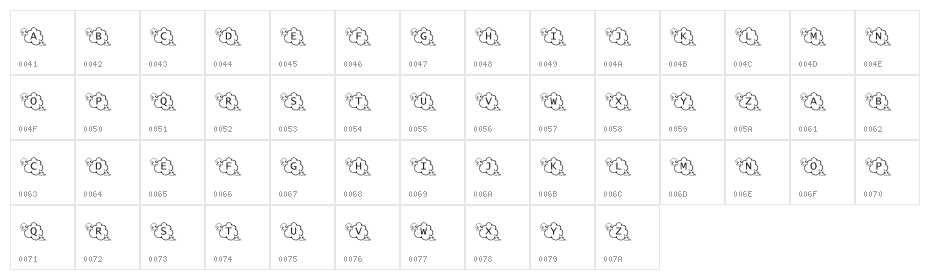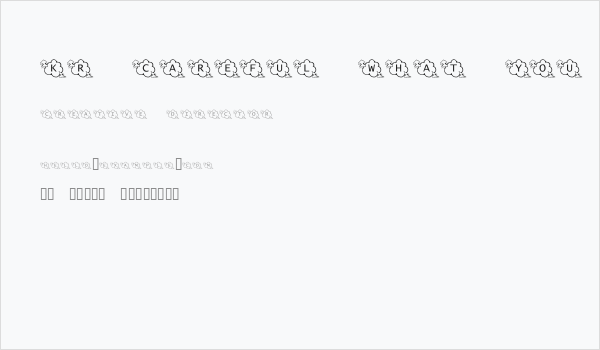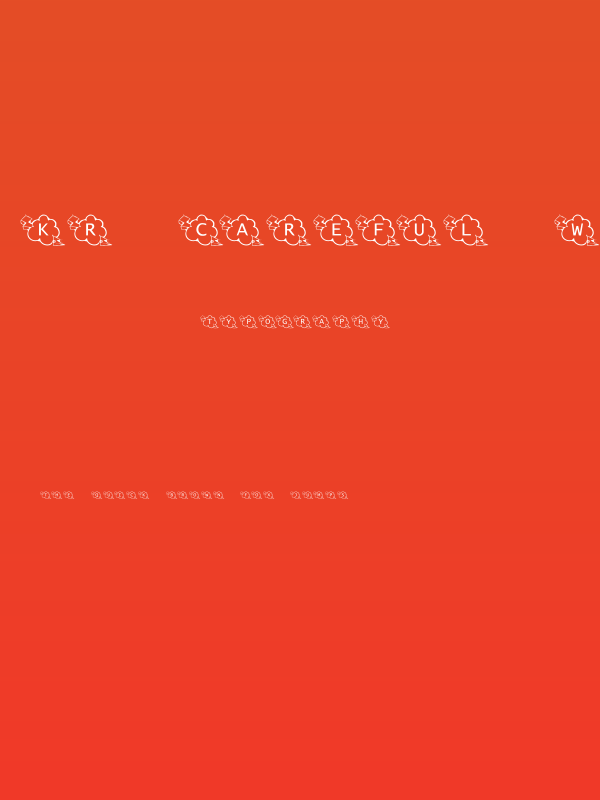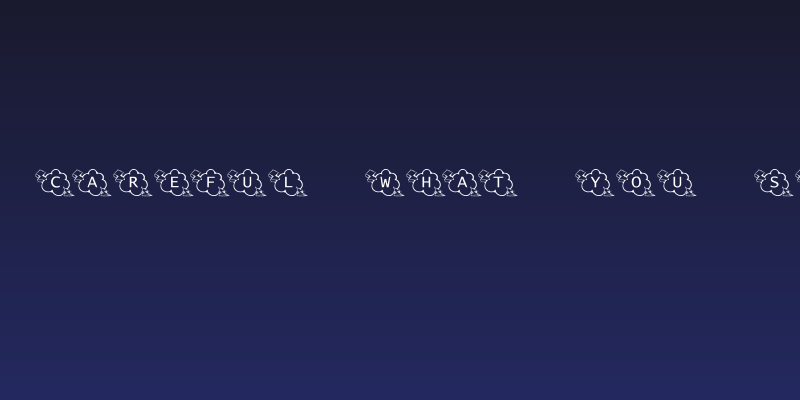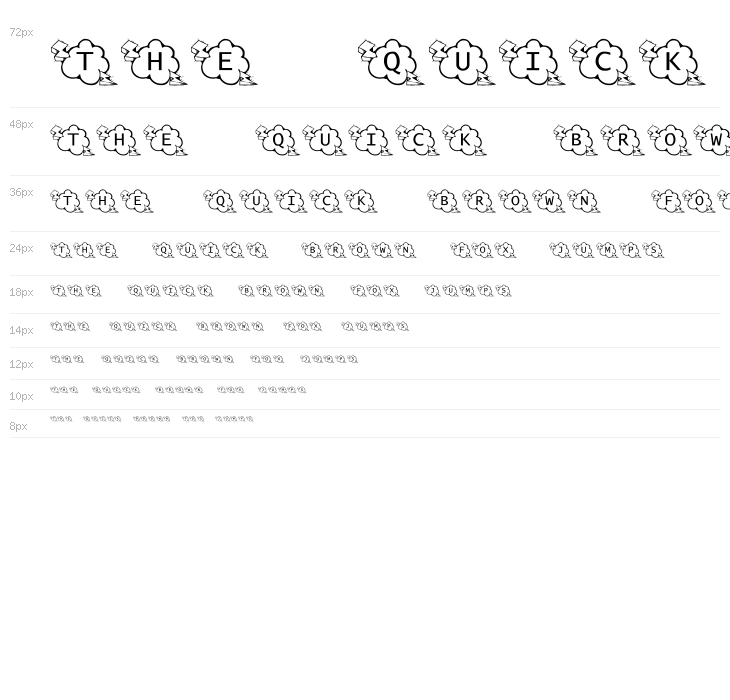
KR Careful What You Say! Font
KR Careful What You Say! Description
This playful and whimsical font features each letter encapsulated within a cloud-like shape, giving it a unique and decorative appearance. The letters are bold and clear, making them easily readable despite the intricate design surrounding them. The font exudes a sense of fun and creativity, perfect for projects that aim to capture attention and convey a lighthearted message. The consistent use of the cloud motif provides a cohesive look across all characters, enhancing its decorative appeal.
| Use Case | Headlines, Logos, Decorative text |
| Proposed Projects | Ideal for children's book covers, playful invitations, greeting cards, or any project that requires a whimsical and eye-catching design. |